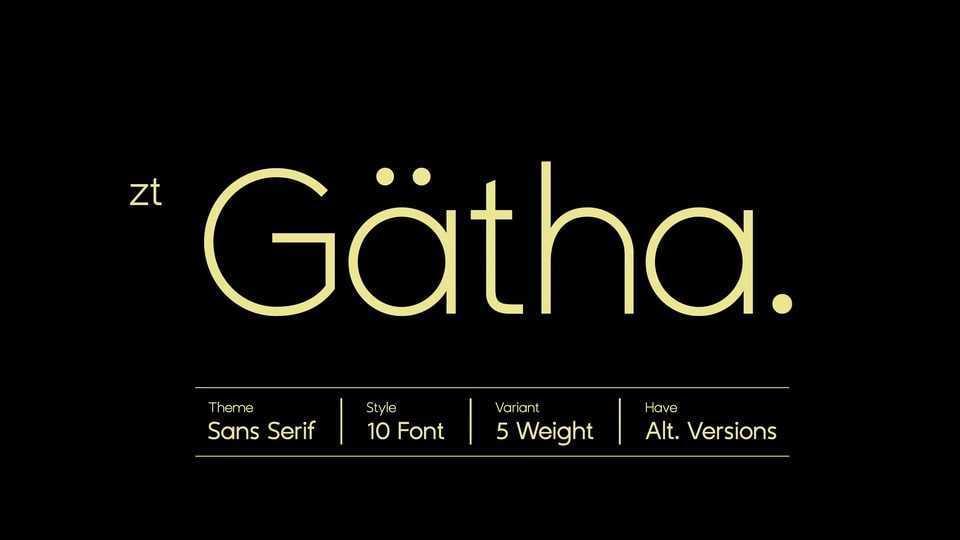
Download ZT Gatha font, a grotesque typeface which focuses only on more complete variations of sans serif. ZT Gatha font has two variants, one of which is a normal sans and the other is unique that minimizes edges of each letter and produces a unique character with a smoothly curved groove.
Designer: Zelow Type